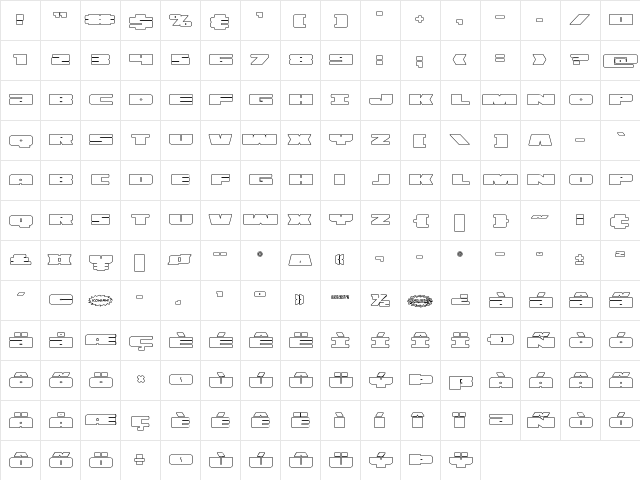
Illumino Outline Outline
Design Context for Illumino Outline Typeface
Illumino Outline is built around its visual character rather than neutral utility — its distinctive forms are designed to make an impression at display sizes.
Font Pairing: Pair with a clean neutral sans-serif for body copy to let Illumino Outline's character lead without overwhelming the composition.
Pro Tip: Use Illumino Outline exclusively at display sizes — it was designed to be seen, not read at length. Let a neutral companion handle body copy.